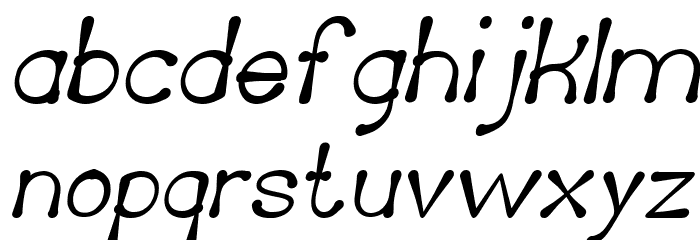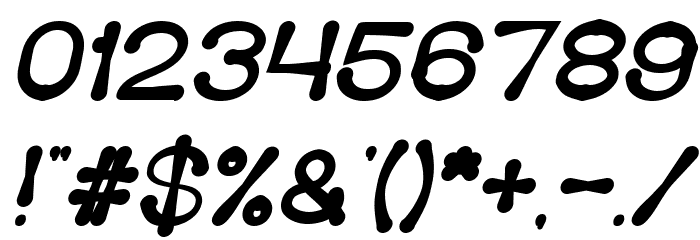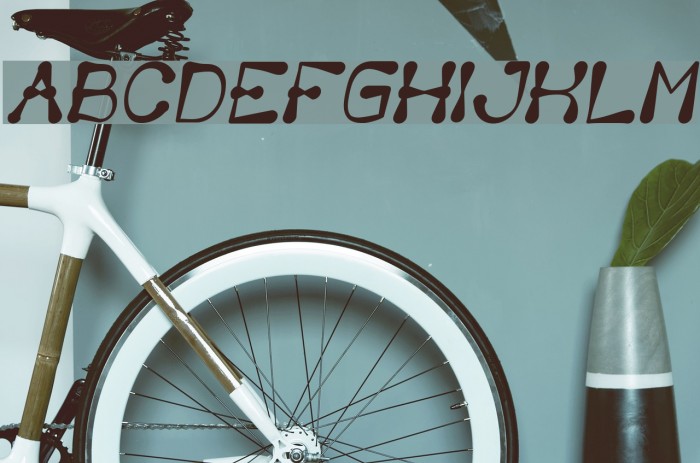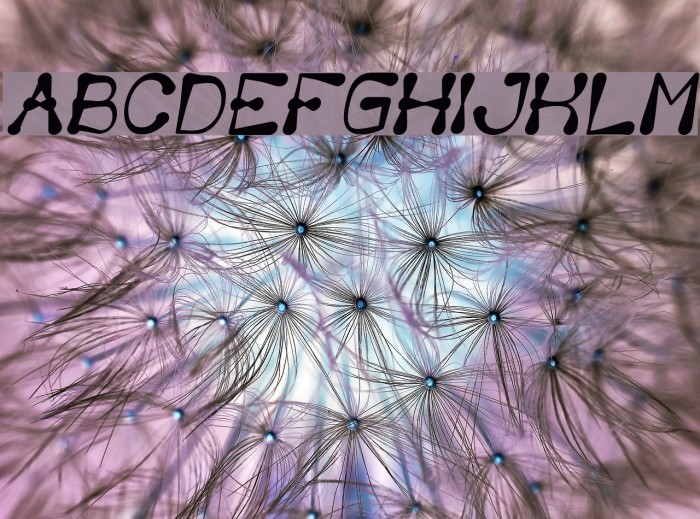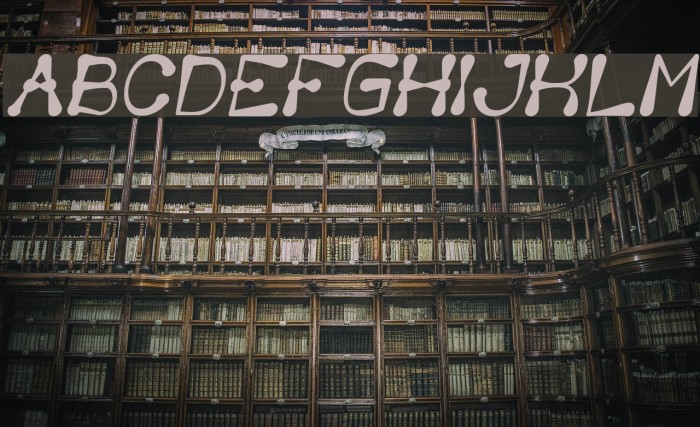
Delicious Ketchup Bold Italic Font
This font features a playful and bold style with a handwritten appearance, characterized by its smooth, flowing curves and slightly slanted letters. The strokes are thick and consistent, giving it a robust and energetic feel. The uppercase letters are distinct with a slight tilt, while the lowercase letters maintain a cohesive flow, enhancing its casual and friendly look. Numbers and special characters are designed to match the overall aesthetic, making it versatile for various uses. Its boldness and italic style make it stand out, perfect for projects that require a touch of personality and flair.
A bold, italic, handwritten-style font with smooth curves and a playful appearance.
- Proposed Projects: Ideal for branding, packaging, children's books, and playful graphic design projects.
- Overall Style: Playful